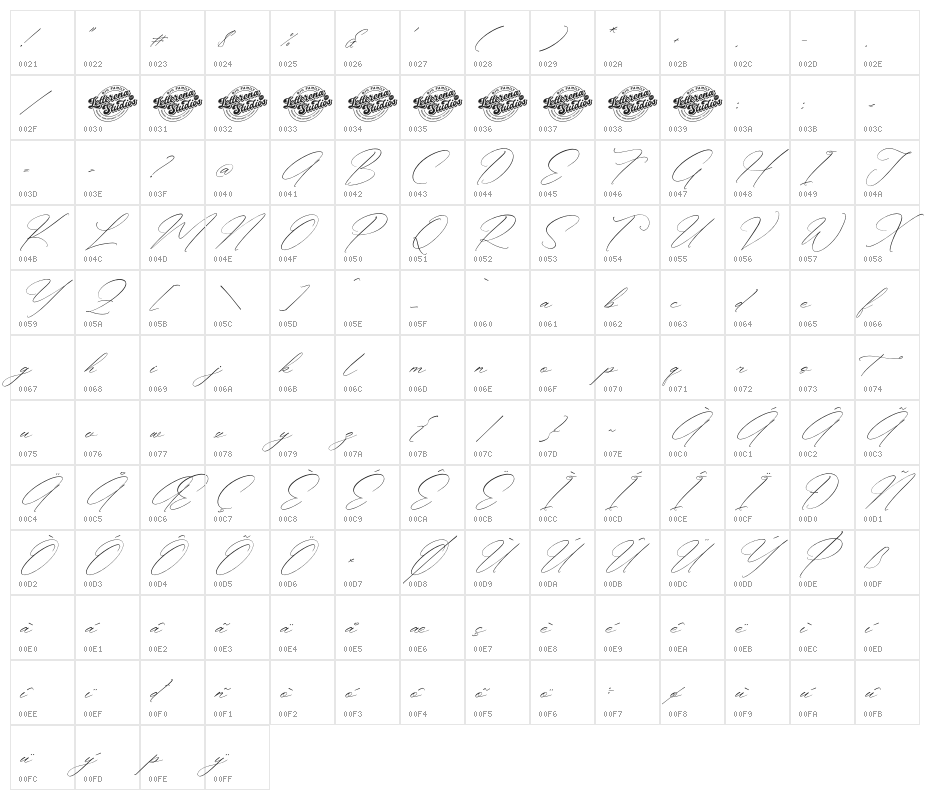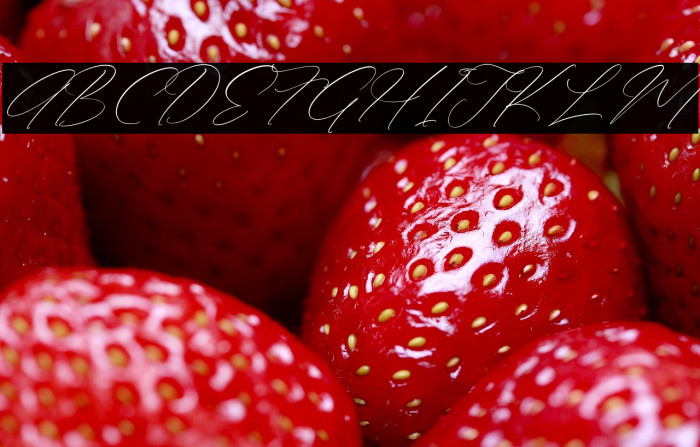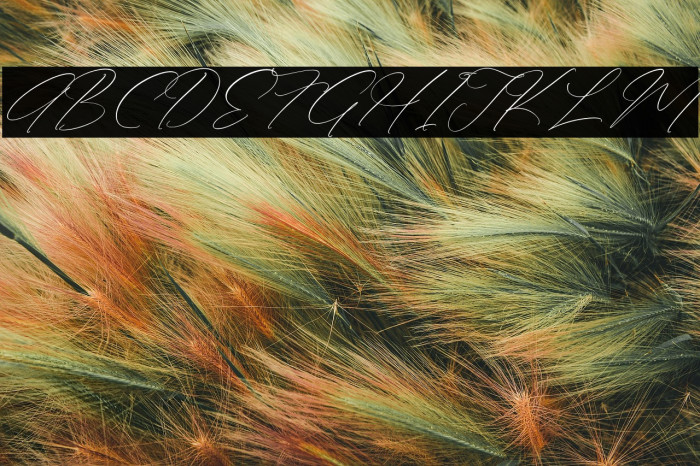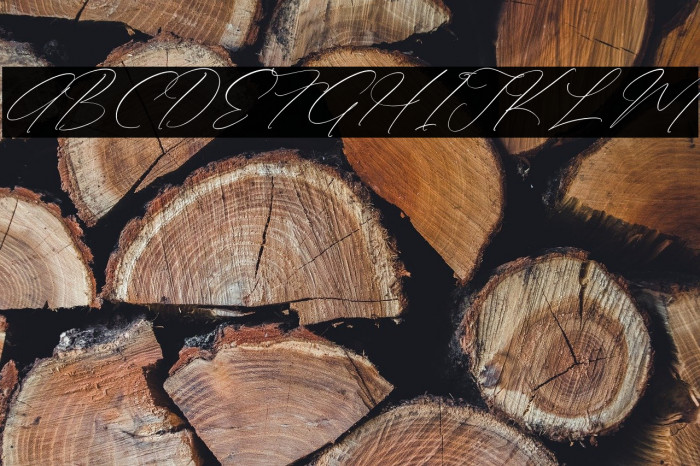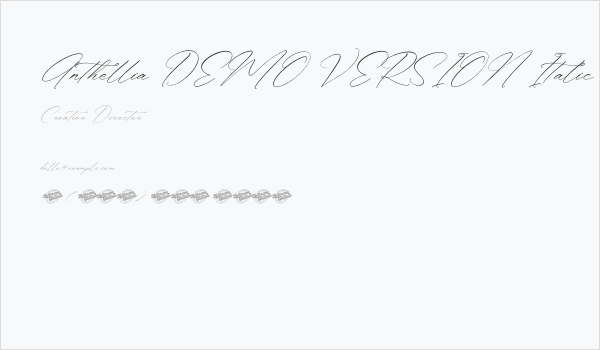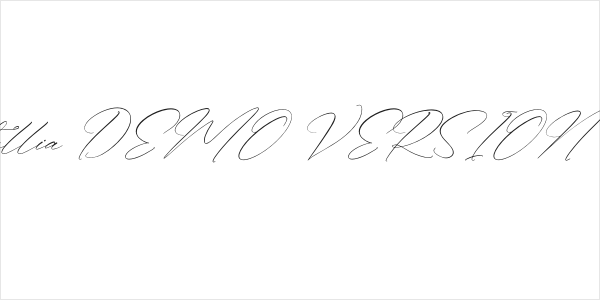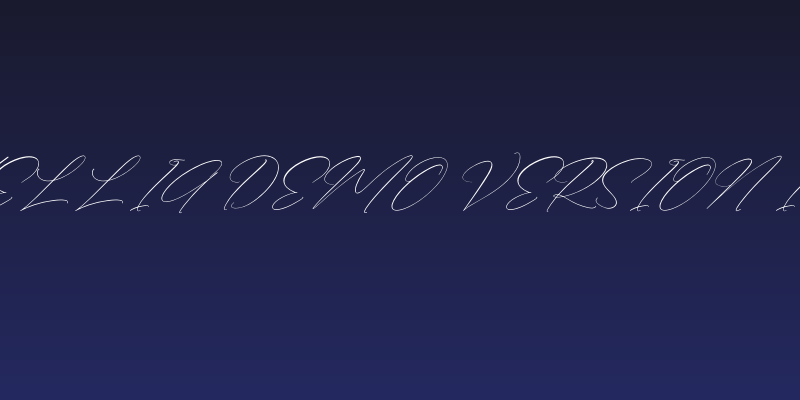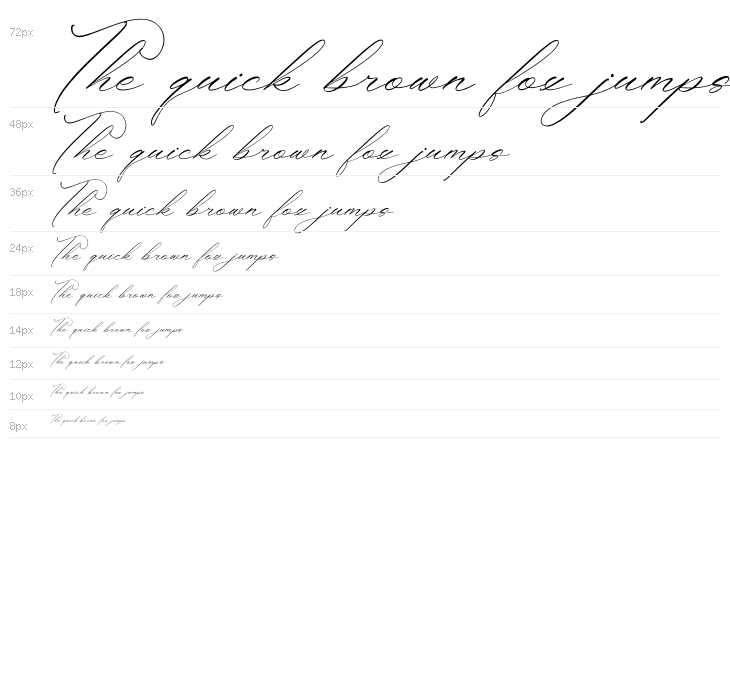
Anthellia DEMO VERSION Italic Font
Anthellia DEMO VERSION Italic Description
This font exudes elegance and sophistication with its flowing, cursive script style. The characters are intricately designed, featuring smooth curves and delicate lines that create a sense of fluidity and grace. The uppercase letters are particularly ornate, with extended flourishes that add a touch of drama. The lowercase letters maintain a consistent style, complementing the uppercase with their own subtle flourishes. The numbers and special characters are crafted with the same attention to detail, ensuring a cohesive look across all elements. This font is ideal for projects that require a touch of elegance and refinement.
| Proposed Projects | Ideal for wedding invitations, luxury branding, elegant stationery, and high-end product packaging. |